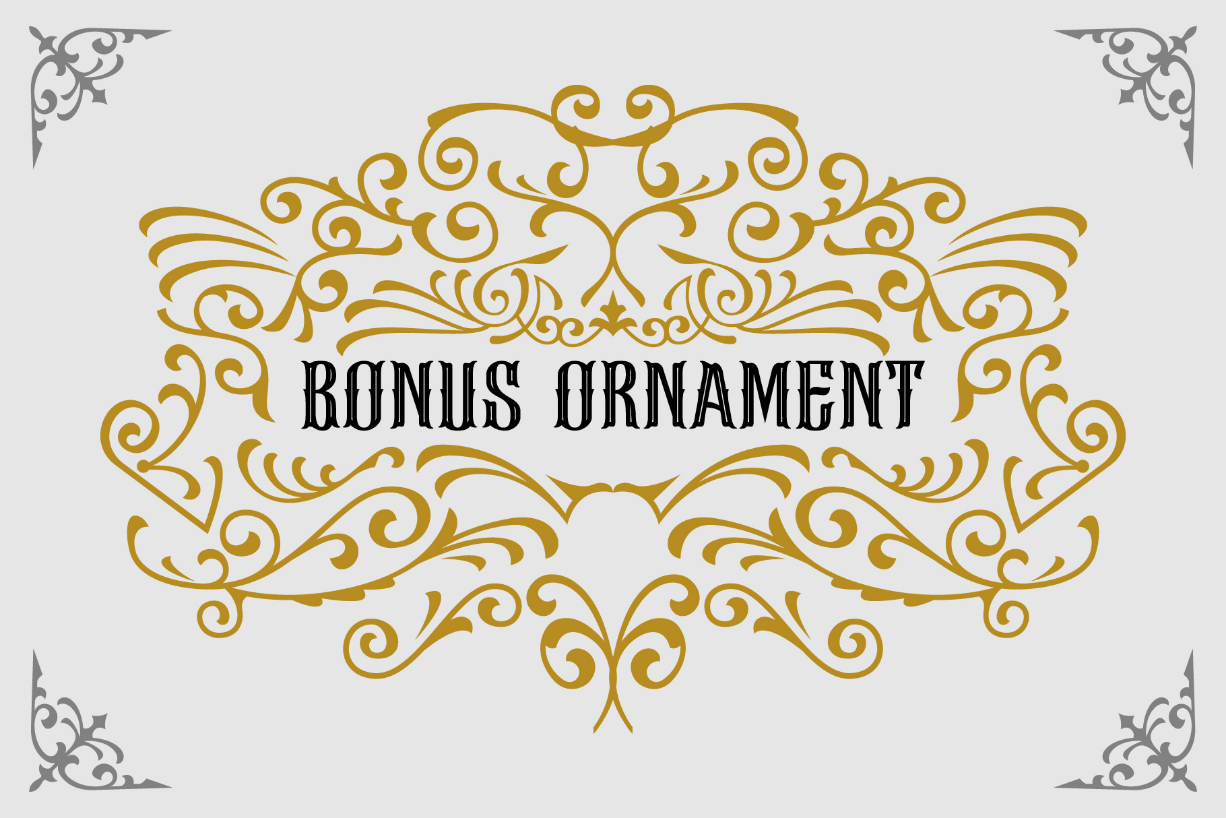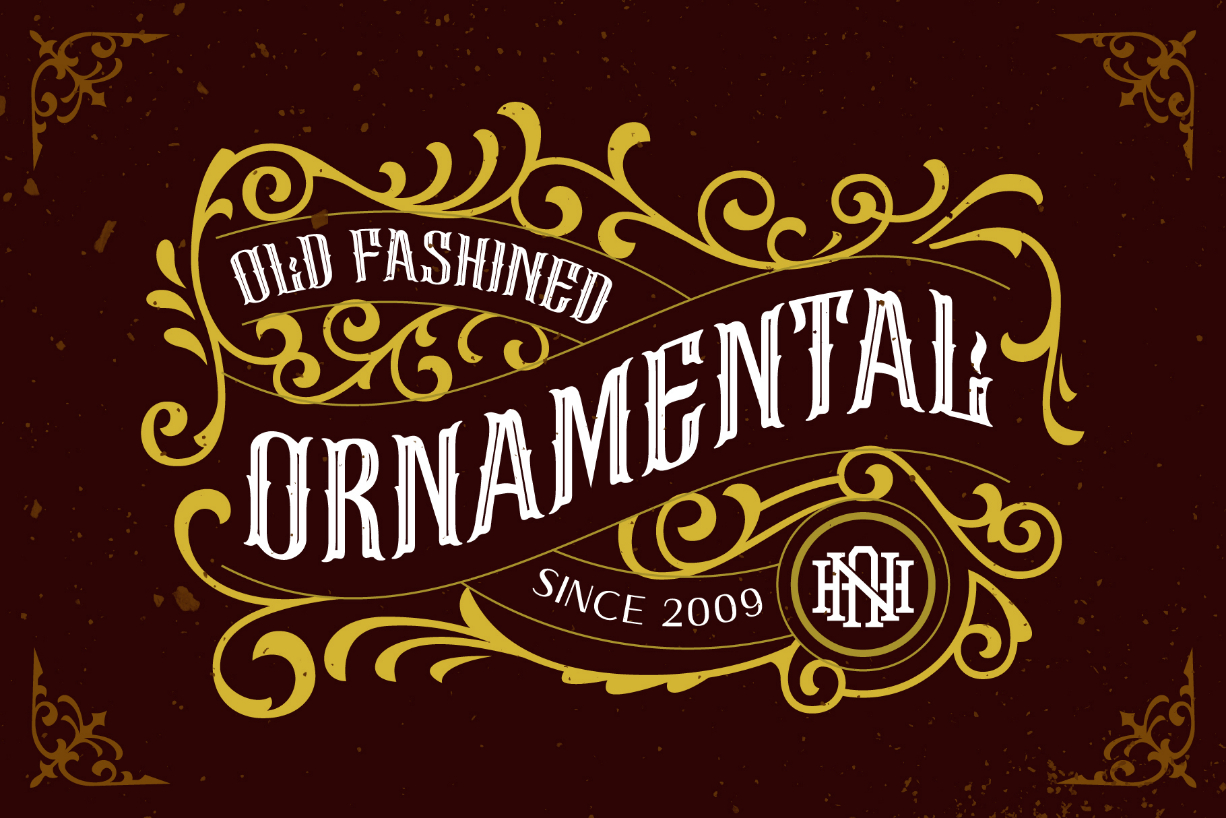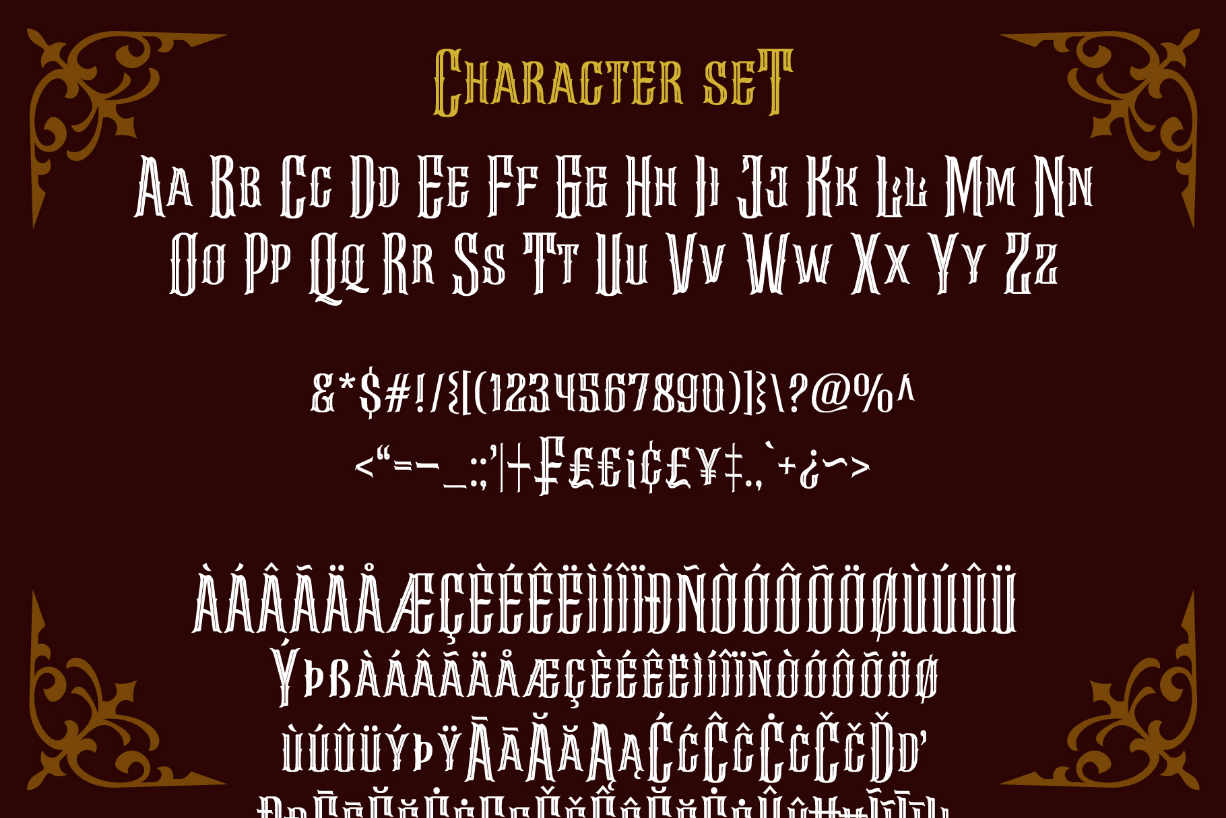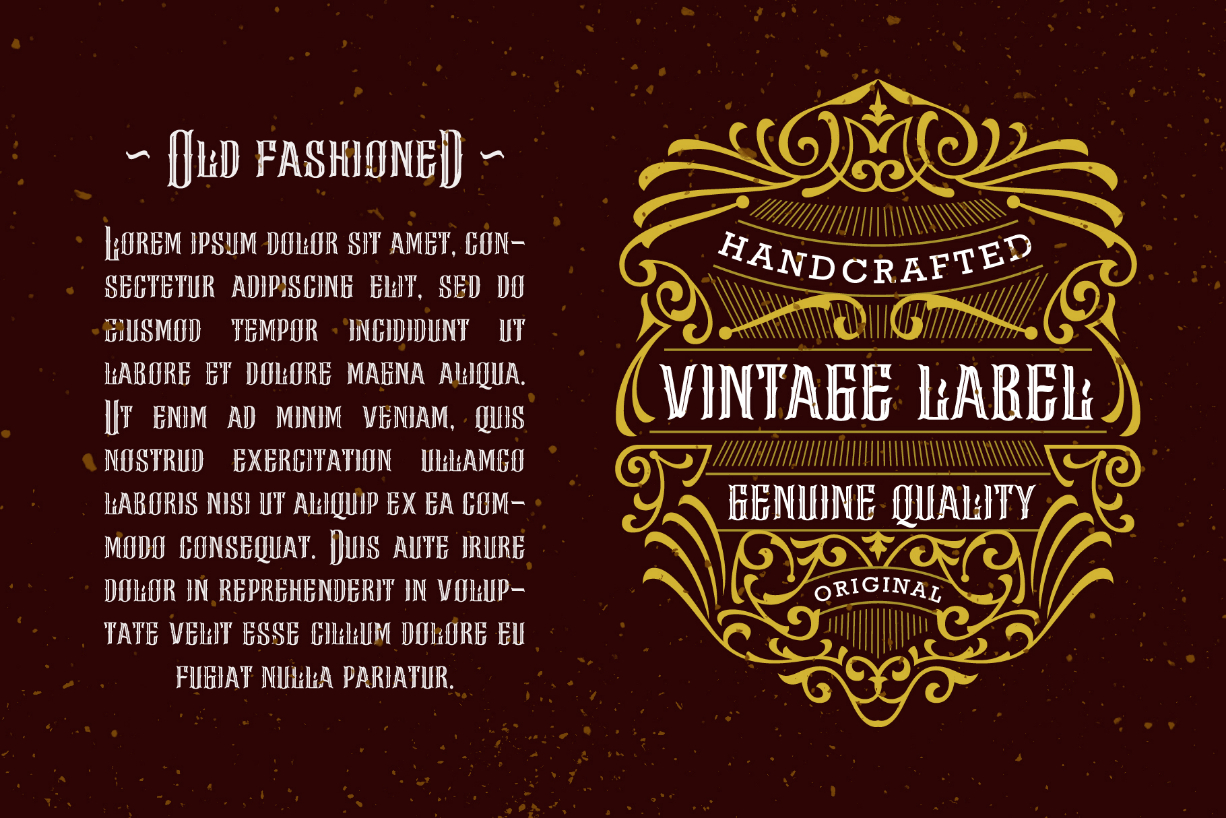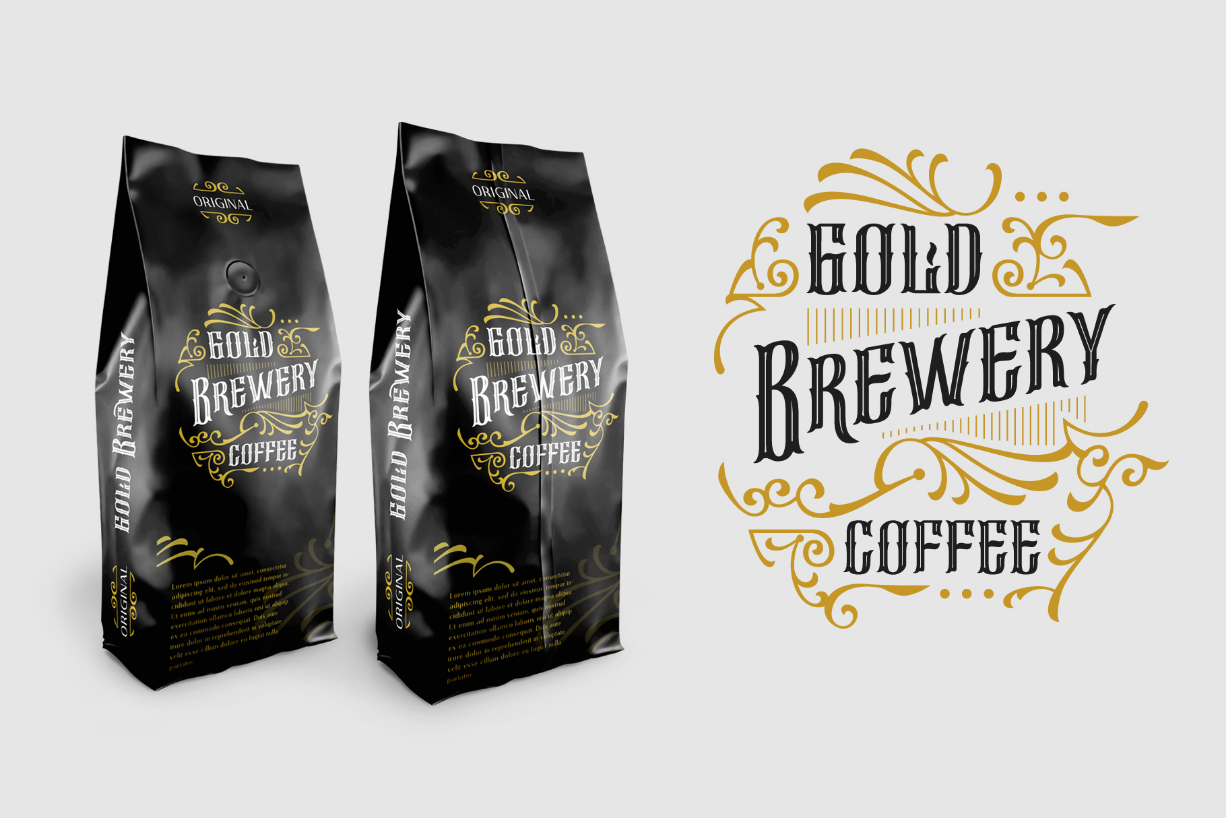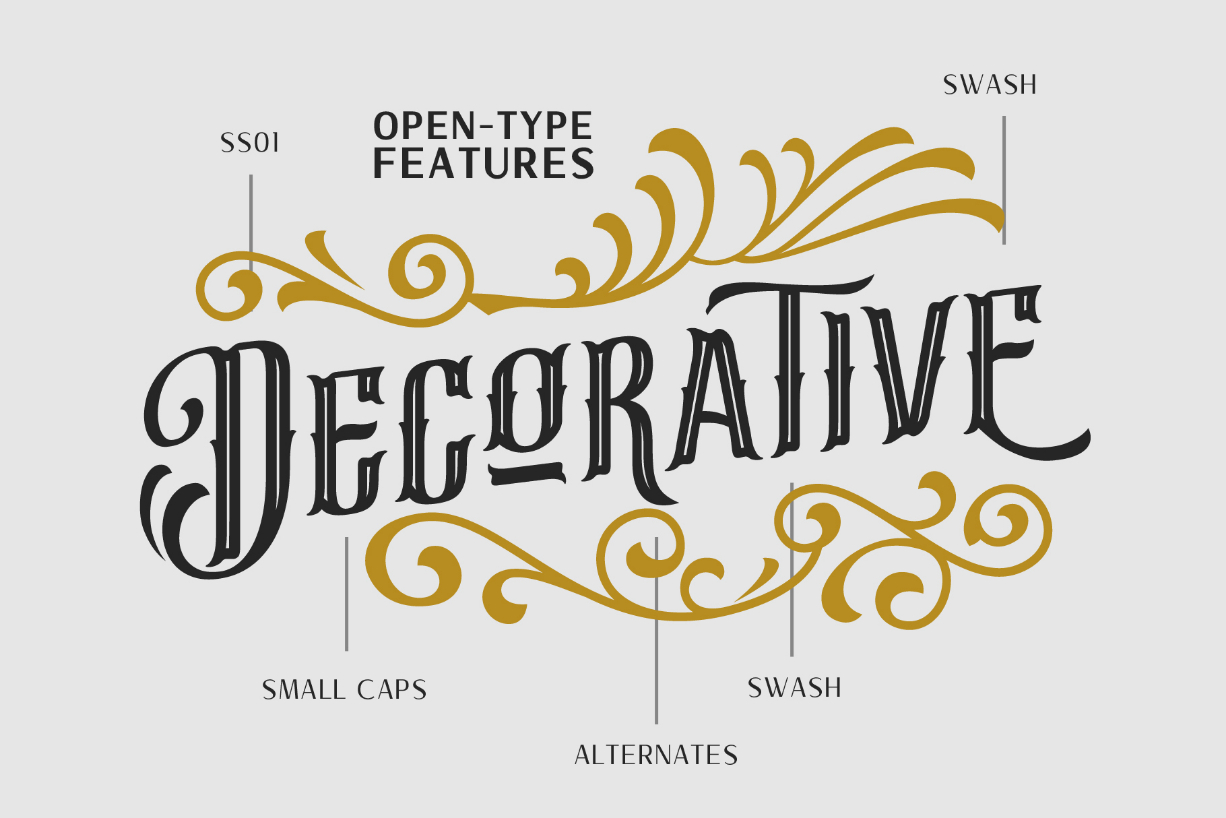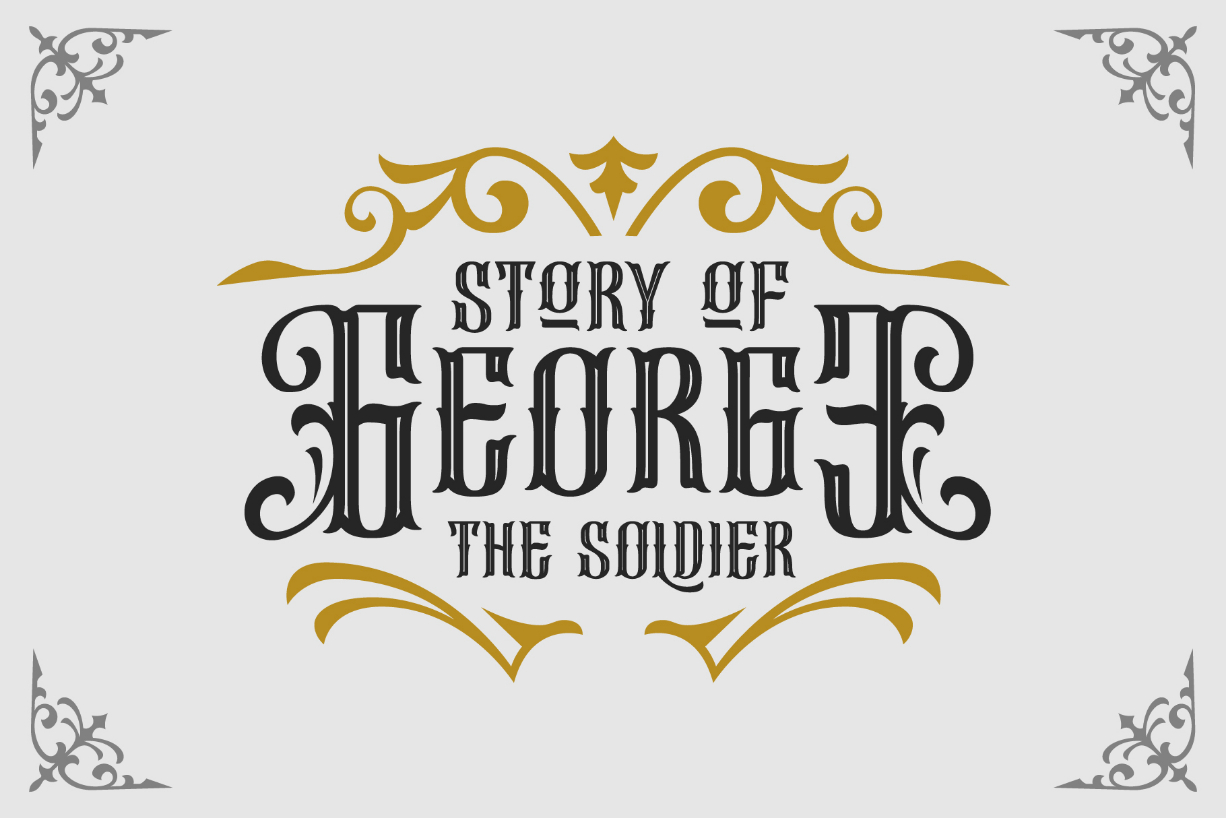
HomeBlackletter FontsRequiem Font Blackletter Fonts Requiem Font FacebookXPinterestWhatsApp 1 of 10 Requiem Font Poster 2... Requiem Font Poster 3... Requiem Font Poster 4... Requiem Font Poster 5... Requiem Font Poster 6... Requiem Font Poster 7... Requiem Font Poster 8... Requiem Font Poster 9... Requiem Font Poster 10... About Requiem Font Requiem is an experimental blackletter font with a bold feel. Get inspired by its unique twist! DOWNLOAD NOW People also explored A Little Mixed Up Font Mango Font Frederico Font Monogram Halloween Font Jumping Font Halloween Skull Font Farmhouse Font Enicye Font Butterfly Waltz 445 0 TagsRequiem Font Previous articleLodeh FontNext articleJoanne Font LEAVE A REPLY Cancel reply Comment: Please enter your comment! Name:* Please enter your name here Email:* You have entered an incorrect email address! Please enter your email address here Website: Save my name, email, and website in this browser for the next time I comment. Personal Use Free Autines Personal Use Free Read more about this font Twisty Girlz Personal Use Free Read more about this font Boldace Personal Use Free Read more about this font Fifty Five Personal Use Free Read more about this font BLOG Transform Your Website: Elevate Your Typography with 7 Best Web Font Generators Are you ready to transform your website's typography from ordinary to extraordinary? Great! Today, we're diving into the world of web font generators, which... Top 10 Handwritten Fonts That Elevate Your Designs Modern Sans-Serif Fonts That Brands Love in 2025 5 Fonts That Will Dominate Design Trends in 2026